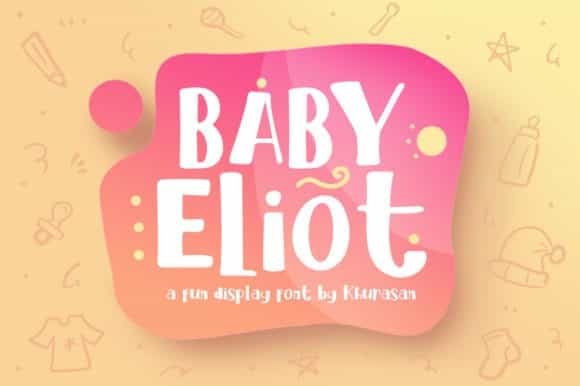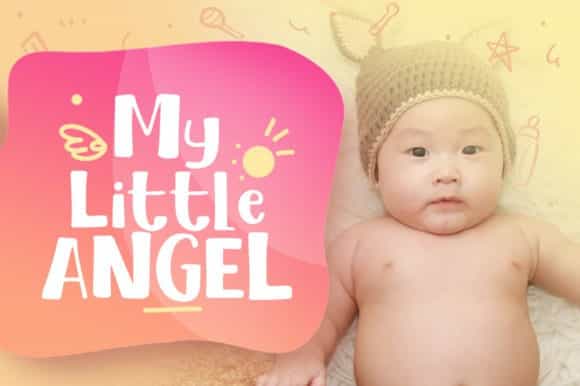
Baby Eliot is a font that was created in many layers and it resembles the happy world of children with different colors. Working with this font in making clothes for kids will make outstanding designs. Besides, it can be applied for branding, products, books and other designs.